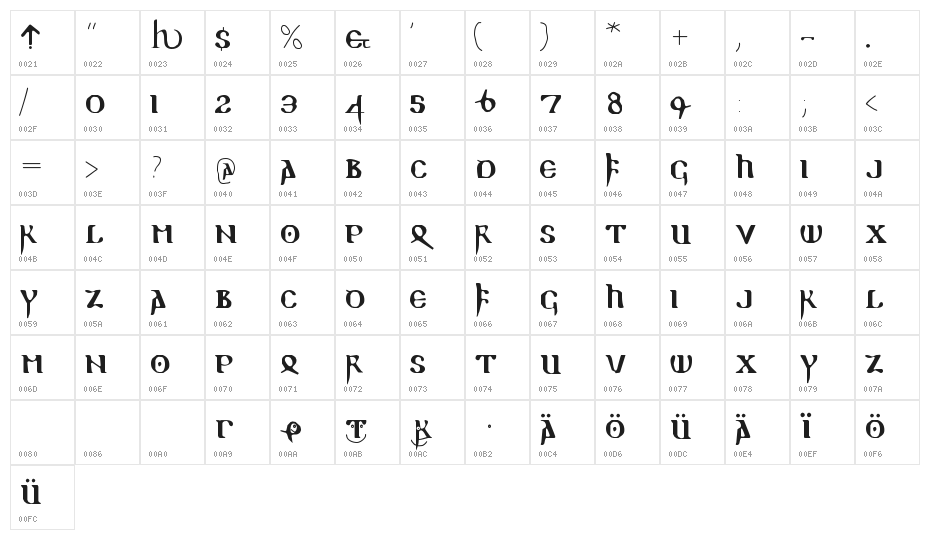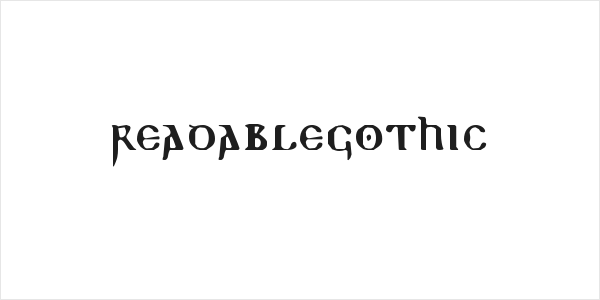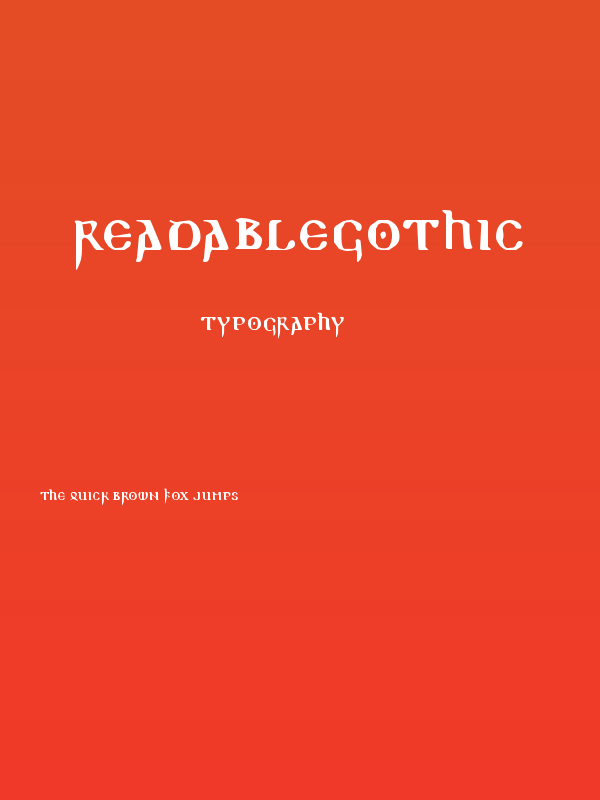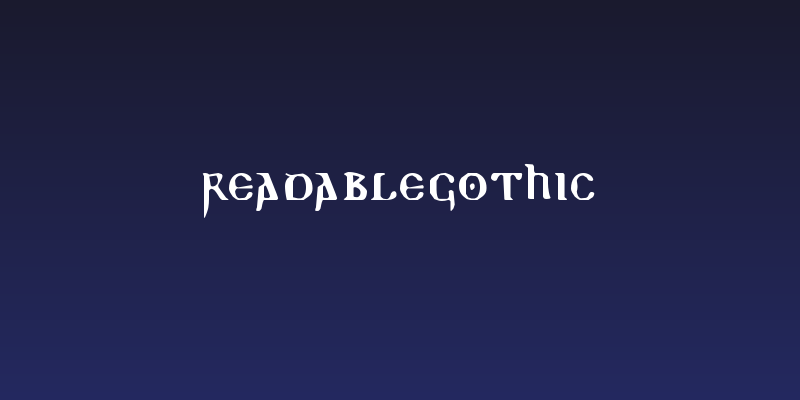
ReadableGothic Font
| Gesamtstil | Vintage |
| Anwendungsfall | Headlines, Logos, Decorative text |
| Vorgeschlagene Projekte | Ideal for historical-themed designs, book covers, posters, and branding that requires a vintage or medieval touch. |